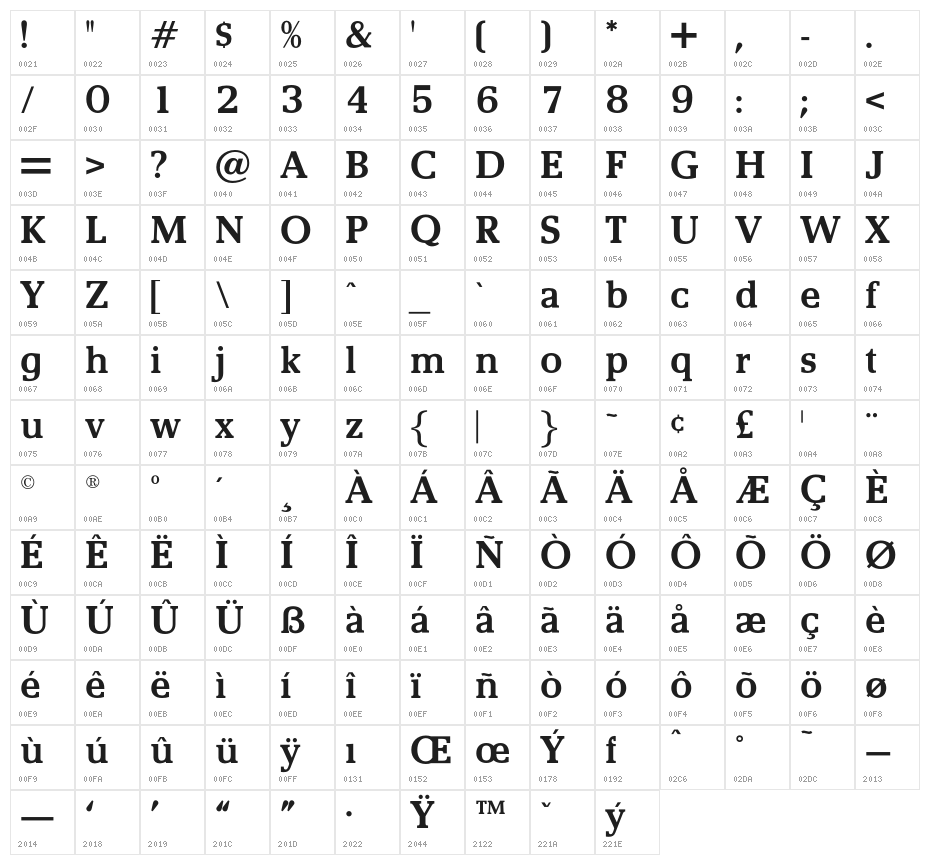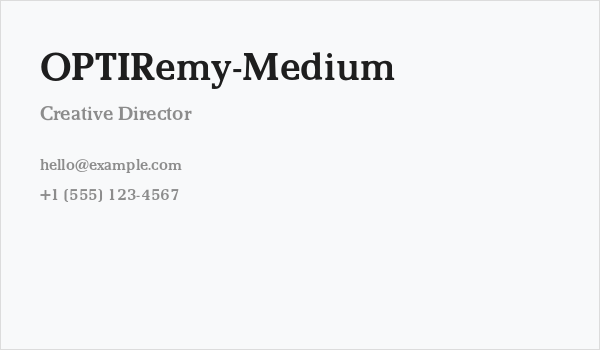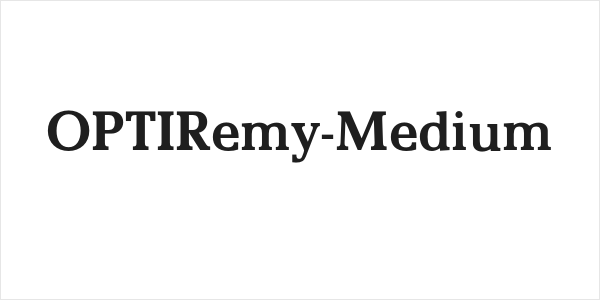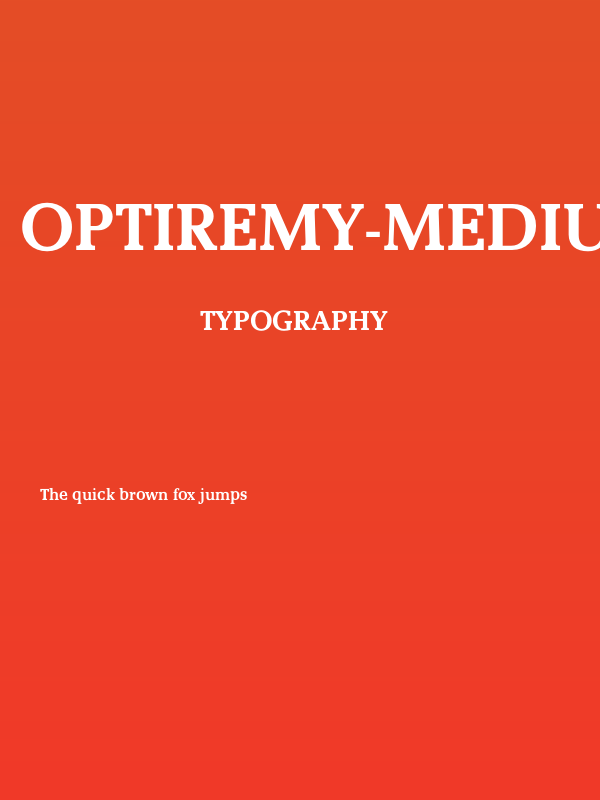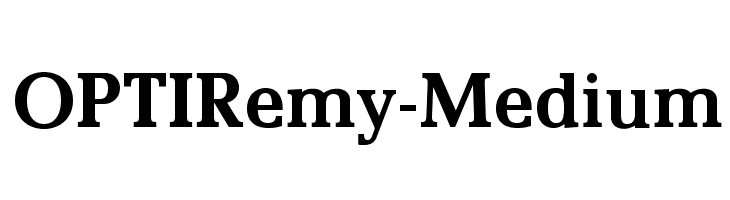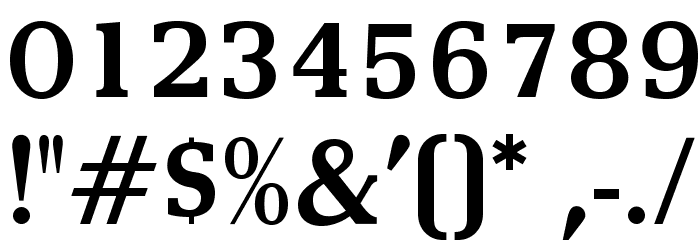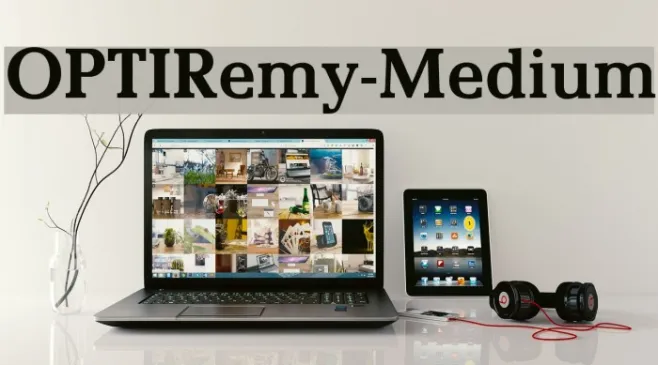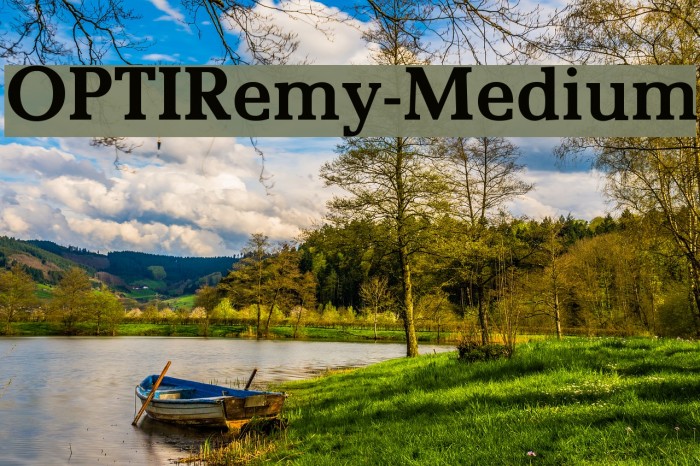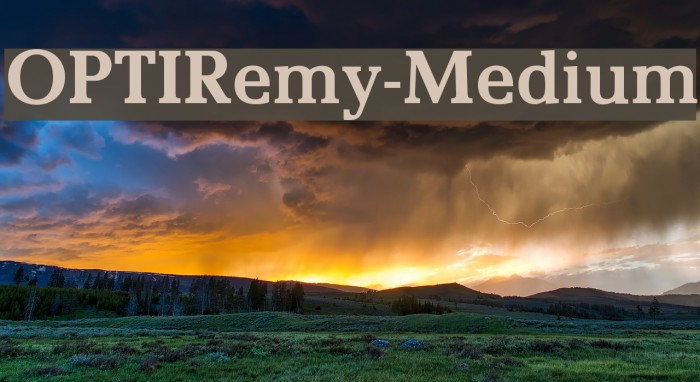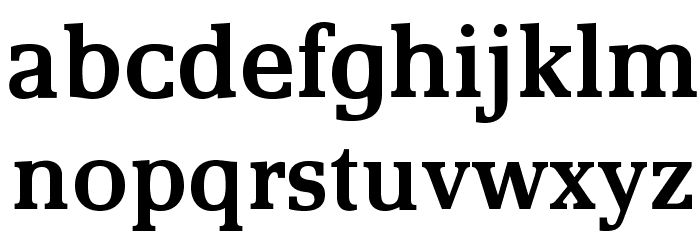
OPTIRemy-Medium Font
OPTIRemy-Medium Description
This font features a classic serif style with strong, bold strokes and a medium weight. The characters are well-defined with a high contrast between thick and thin lines, giving it a traditional yet robust appearance. The uppercase letters are slightly taller than the lowercase, maintaining a consistent and balanced look. The numerals are clear and distinct, making them easily readable. The special characters are elegantly designed, complementing the overall aesthetic. This font is versatile, suitable for both formal and creative applications.
| Proposed Projects | Ideal for book covers, editorial design, branding, and formal invitations. |